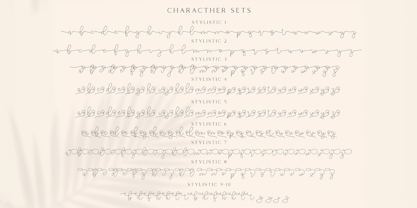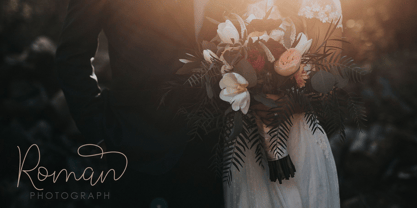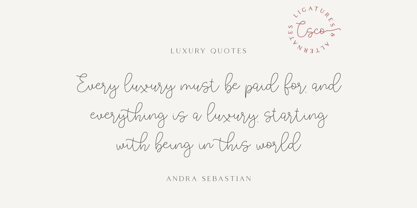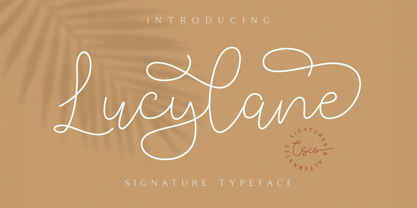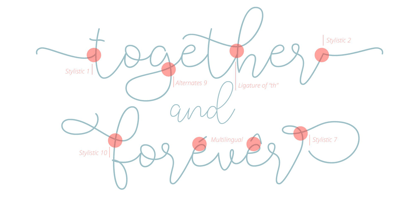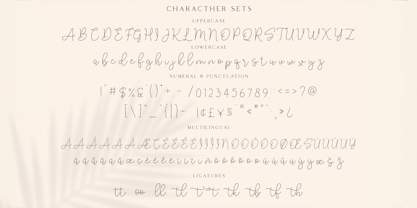
Lucylane
by Craft Supply Co
The Lucylane Font Family was designed by Trio Nazzar Saputra, Wahyu Hadi Yuana and published by Craft Supply Co. Lucylane contains 2 styles and family package options. More about this family
Lucylane – Signature Typeface is a free-flowing monoline, the two style typeface exploits the common letter-to-letter transitions of the typical cursive hand. It can be used to create almost all types of design projects like print materials. Just use your imagination and some graphic design set in Extras, your project will become more alive and look great than ever with one of the Lucylane font. You want to make a greeting card or a package design, or even a brand identity, craft design, any DIY project, book title, wedding invitation, identity card, packaging, or any purpose to make your art / design project look pretty and trendy? Feel free to play with all the whole alternates!